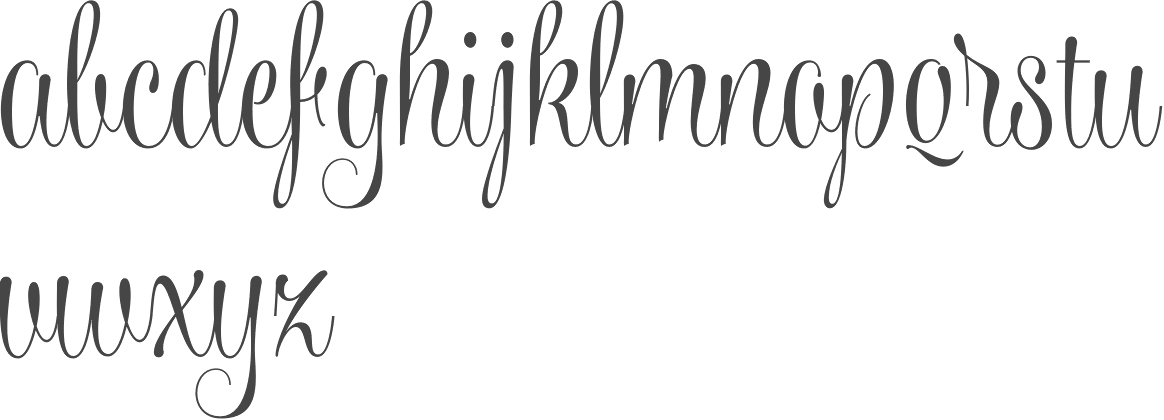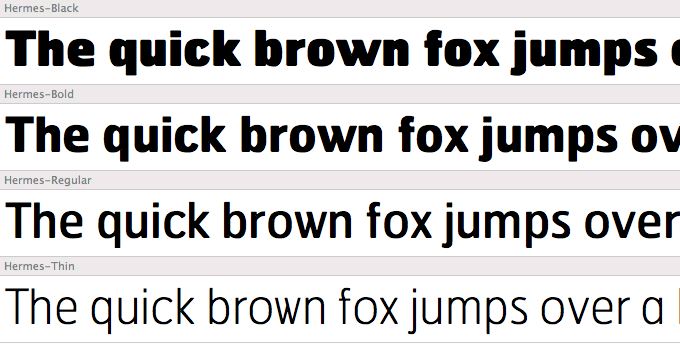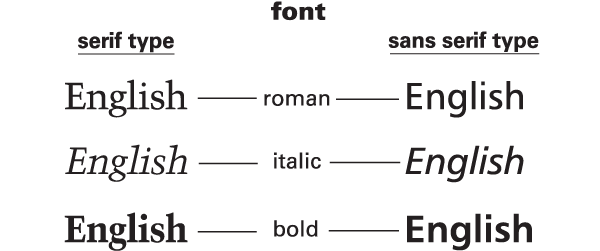
Fonts Definition. Sans serif fonts are modern, humanist and neutral. A font is a set of printable or displayable text character s in a specific style and size.
Font definition, a receptacle, usually of stone, as in a baptistery or church, containing the water used in baptism. A font is a set of characters that can have varied sizes, colors, or designs. It is important to be intentional when choosing fonts because they can affect readability, influence tone, and reflect professionalism all.
Script Fonts Are Elegant, Classic, Stylish And Formal.
The most popular languages for defining scaleable fonts are postscript and truetype. Definition of font (entry 2 of 2) : A basin for holding baptismal water in a church.
Changing The Font Can Alter The Look And Feel Of A Block Of Text.
Font Definition, A Receptacle, Usually Of Stone, As In A Baptistery Or Church, Containing The Water Used In Baptism.
Postscript is primarily a language for printing documents on laser printers, but it can be adapted to produce images on other types of devices. I am looking for one. Script typefaces place particular demands on printing technology if the letters are intended to join up and vary like handwriting.
There Are A Number Of Different Elements You Can Use To Evoke Specific Emotions In Your Designs.
They create a modern and minimalistic look. The type design for a set of fonts is the typeface and variations of this design form the typeface family. Serif fonts portray tradition, sophistication and a formal tone.
A Font Is A Collection Of Characters With A Similar Design.
A font is a set of characters that can have varied sizes, colors, or designs. These characters include lowercase and uppercase letters, numbers, punctuation marks, and symbols. Information and translations of fonts in the most comprehensive dictionary definitions resource on the web.